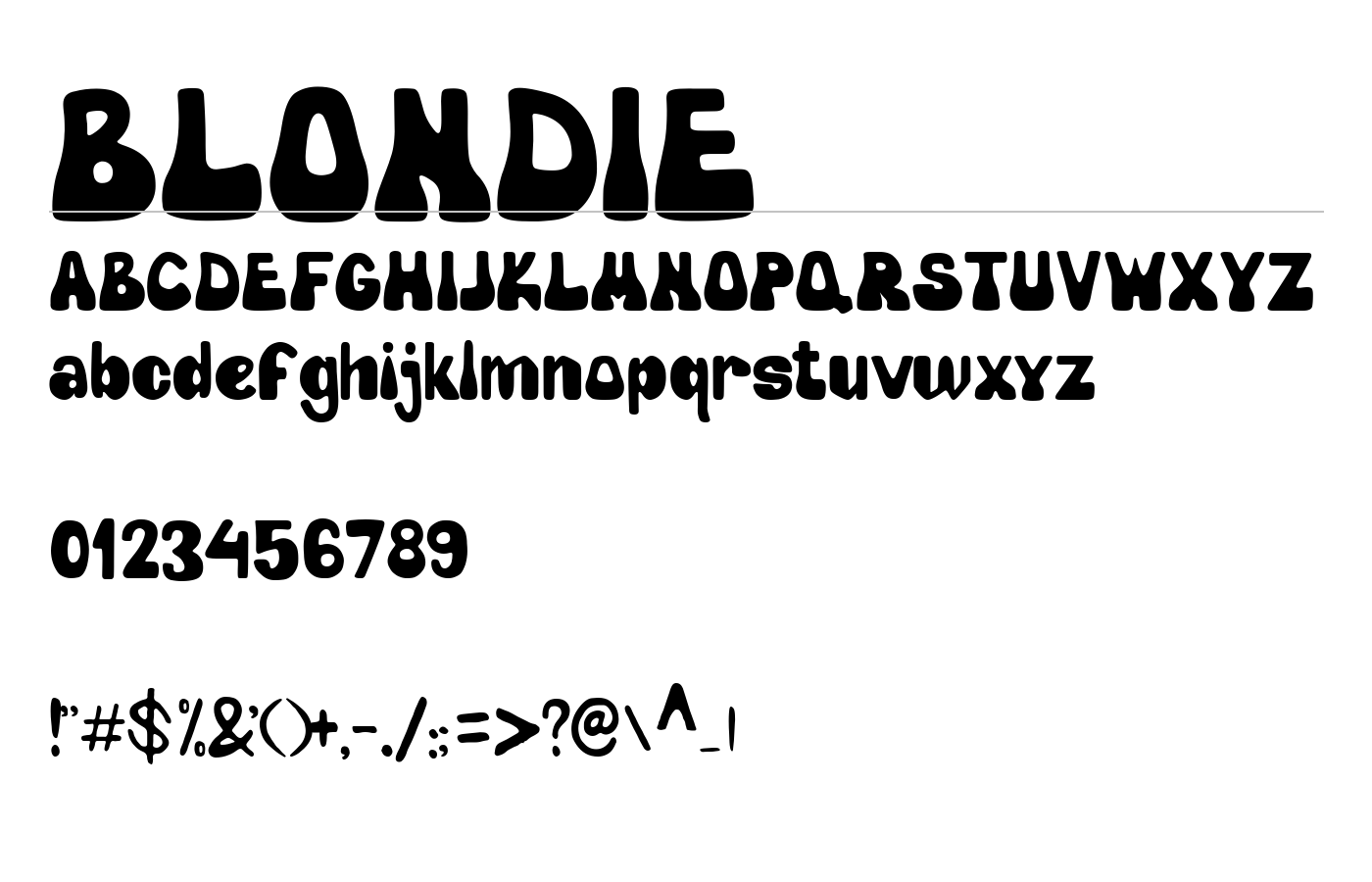
Blondie is a playful, bold sans serif font with a hand-drawn feel, featuring thick, rounded letterforms that create a soft and friendly appearance. Its casual style and slightly irregular shapes make it ideal for fun and informal designs, such as children’s books, quirky logos, and lively headlines that want to convey warmth and approachability. The font’s wide, chunky letters also ensure strong visibility, making it a great choice for impactful display use.
BLONDIE Font
About BLONDIE Font
| Font family | BLONDIE Font |
| Designer | Sealoung+Saiful Anwar |